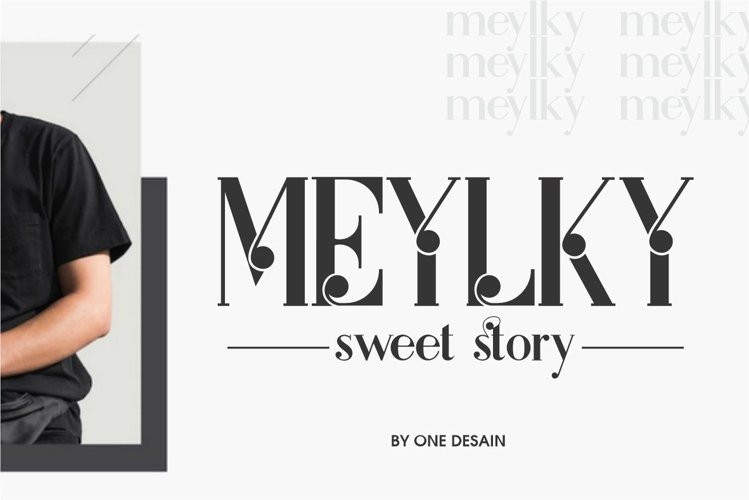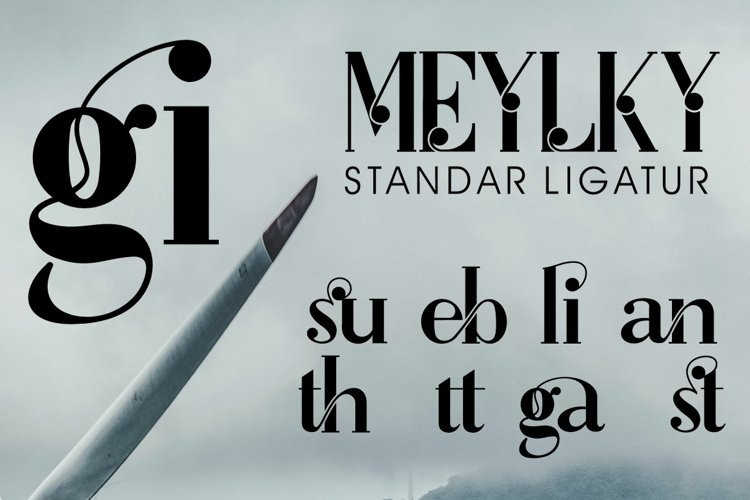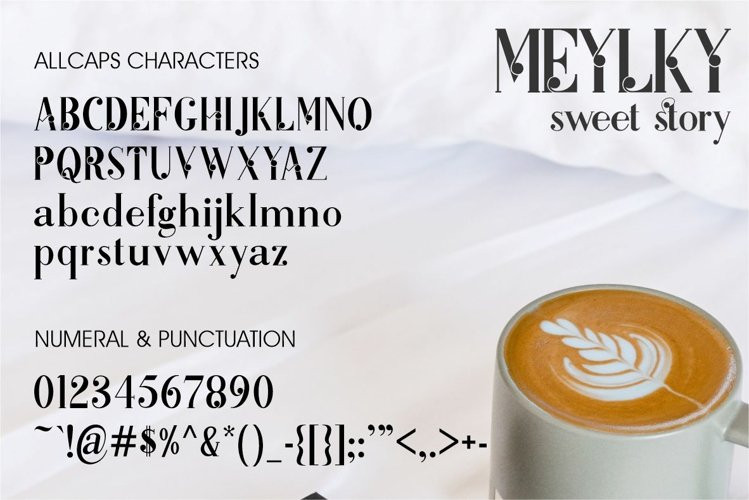
Meylky Font
Meylky FontIntroducing MEYLKY sweet story, Inspired by today’s modern logo with a unique style but with an elegant shape. So we tried to create and build fonts according to the current market needs. MEYLKY sweet story has a unique bond that is very suitable for various types of work such as posters, packaging, T-shirts, coffee shops, restaurants, magazine headers, signs or gift/post cards, cafes and weddings or other types. advertising purposes.